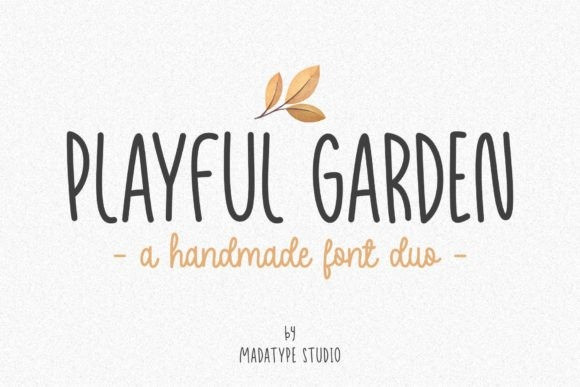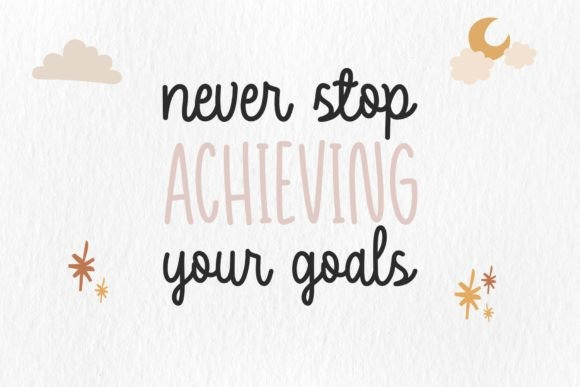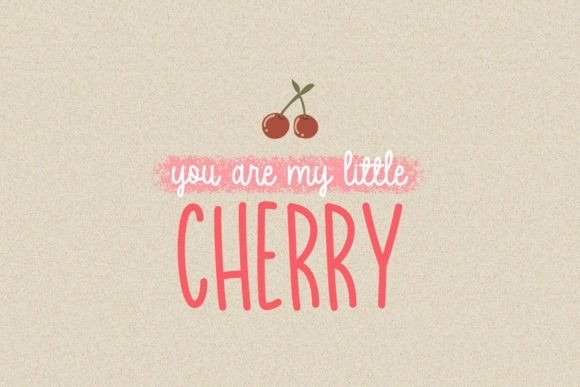
Playful Garden Typeface
Playful Garden Typeface is a simple and fun handwritten font duo that will make your design project more lively and attractive. You will get Playful Garden and Blue Lake Fonts in this package. This font duo features a combination of script and handwritten fonts, each with various ligatures and alternates to give you more options and flexibility.
Whether you need to create logos, posters, flyers, banners, or social media graphics, Playful Garden will add a touch of whimsy and creativity to your designs.